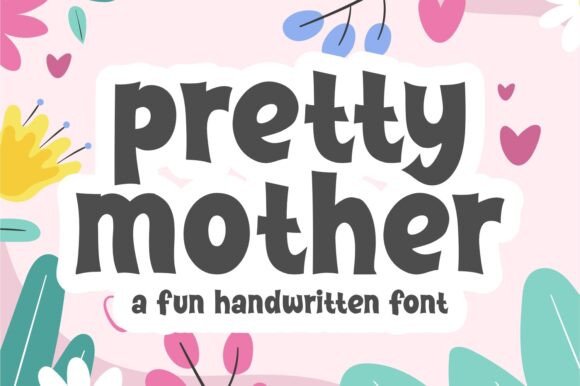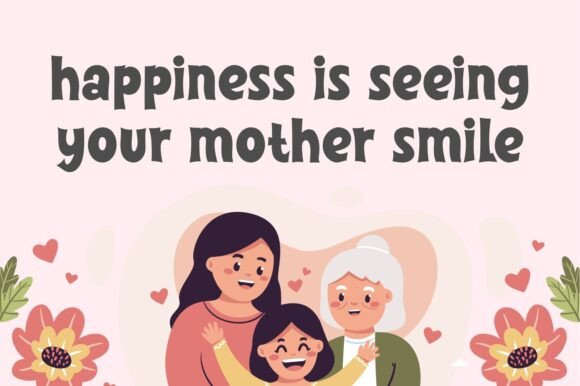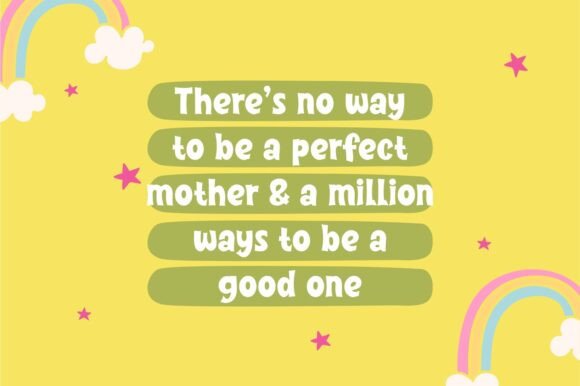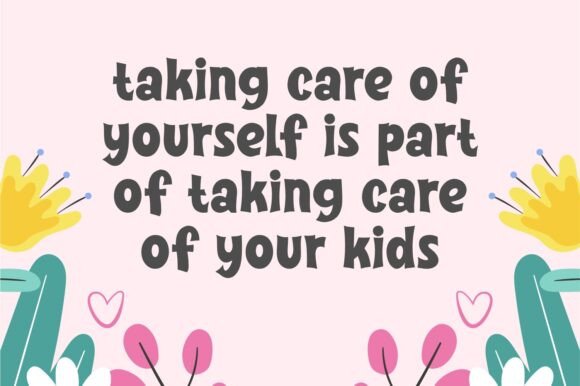
Pretty Mother Font: A Bold, Cute Handwritten Font for Cricut Crafts
About the Pretty Mother Font
Explore the possibilities with Pretty Mother Font, a font that offers both beauty and functionality. Pretty Mother is a bold and fun handwritten font that exudes warmth and personality. With its playful, slightly uneven strokes and chunky letterforms, this font is perfect for heartfelt quotes, greeting cards, children’s projects, or anything that needs a cheerful and loving touch. Its multilingual support ensures versatility, making it ideal for global creatives. Add a dose of charm and joy to your designs with Pretty Mother.
Pretty Mother’s playful energy makes it ideal for headlines, short text blocks on packaging, and social media graphics. It adds a charming, approachable feel to branding for children’s products, craft businesses, or cafes. However, its informality and uneven strokes make it unsuitable for body text or UI elements requiring high readability.
Consider pairing Pretty Mother with a clean sans-serif like Lato for a balanced contrast, or a more geometric sans-serif like Montserrat for a modern feel. For a softer contrast, a delicate serif like Playfair Display could work well. Avoid pairing it with other highly stylized scripts, which would create visual clutter.
Its core personality is undeniably friendly and approachable, conveying warmth and a handmade aesthetic. This makes it perfect for projects aiming for a lighthearted, inviting tone.
Pretty Mother Font Usage Examples
Pretty Mother Font Example